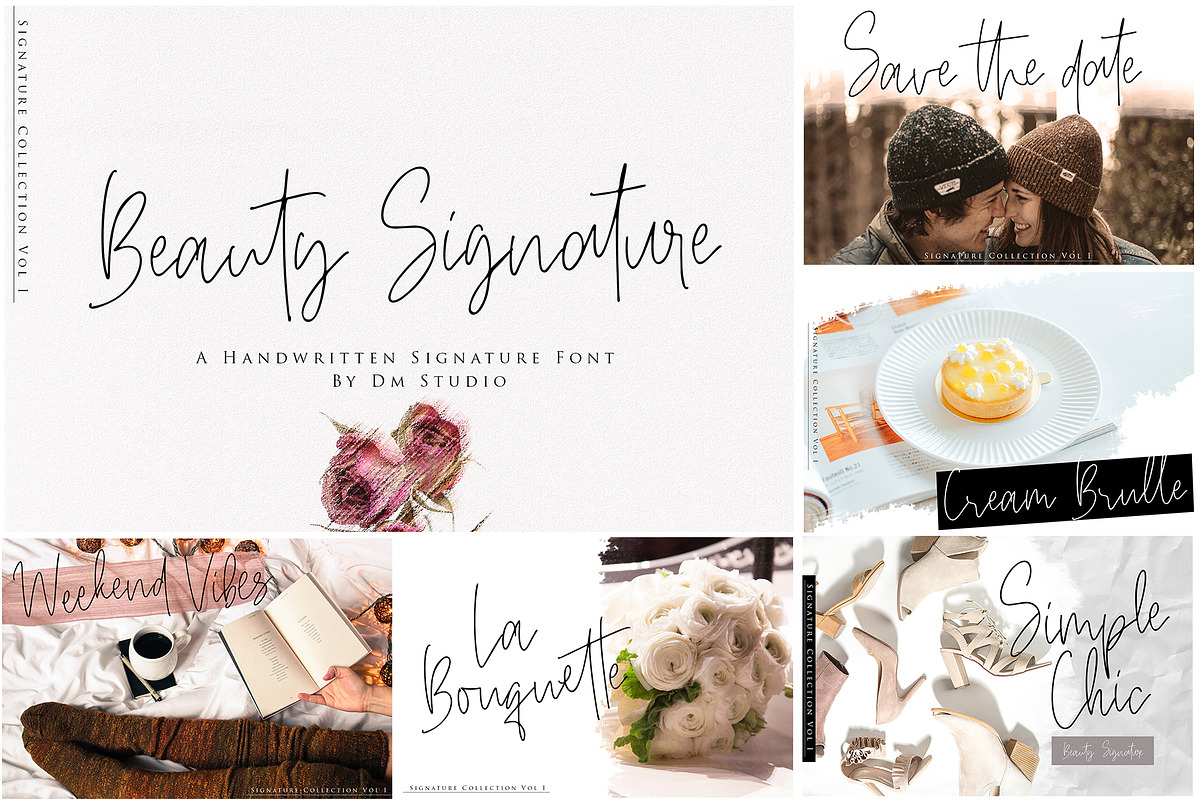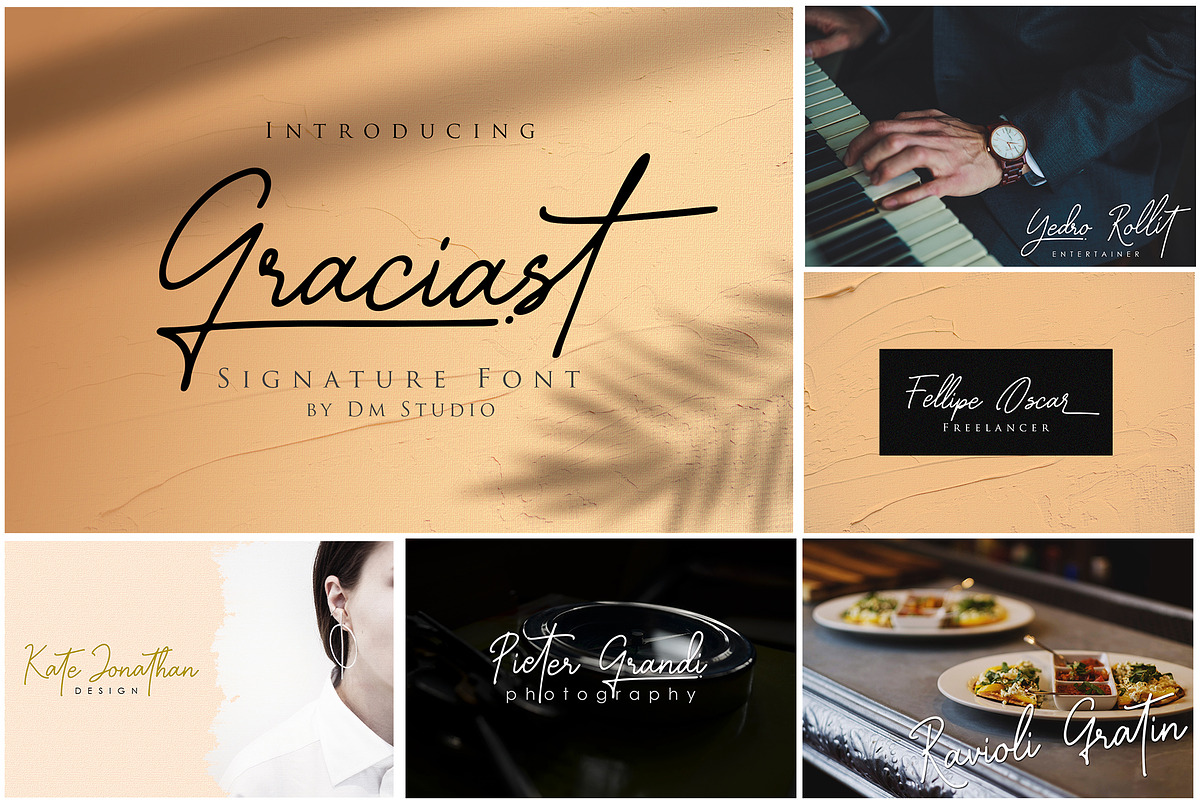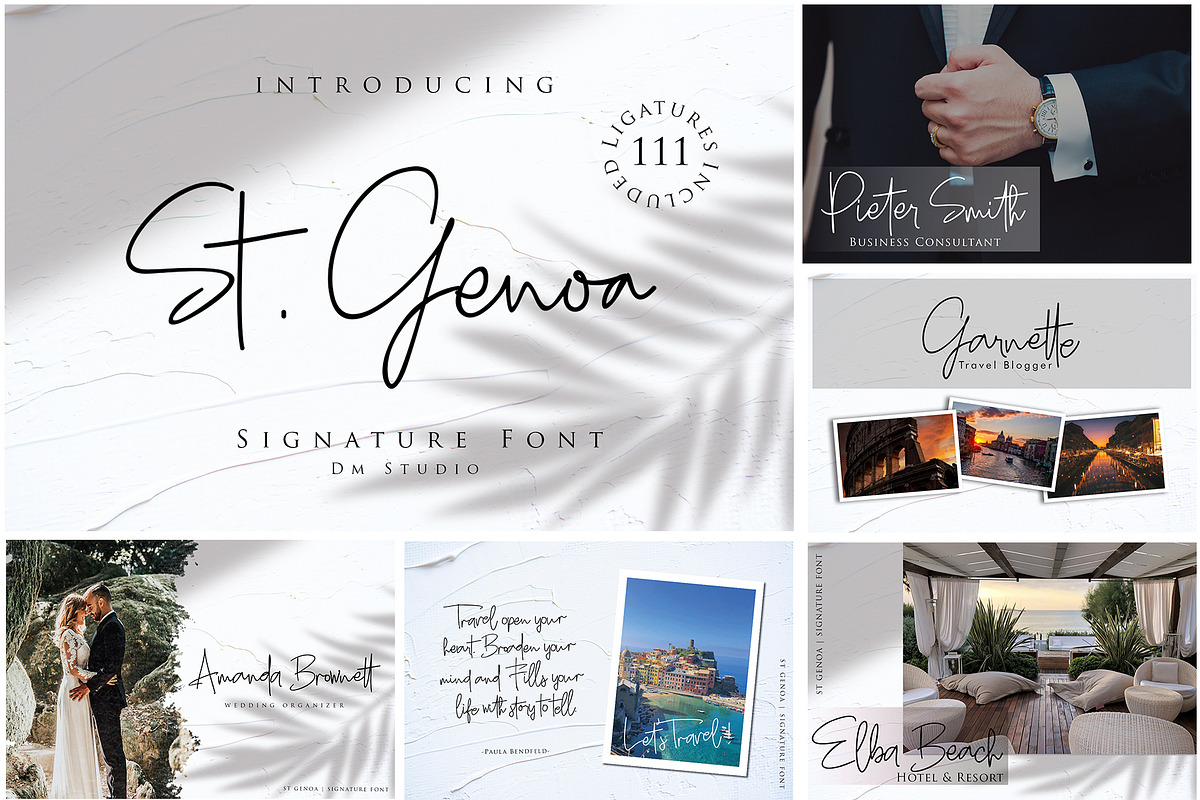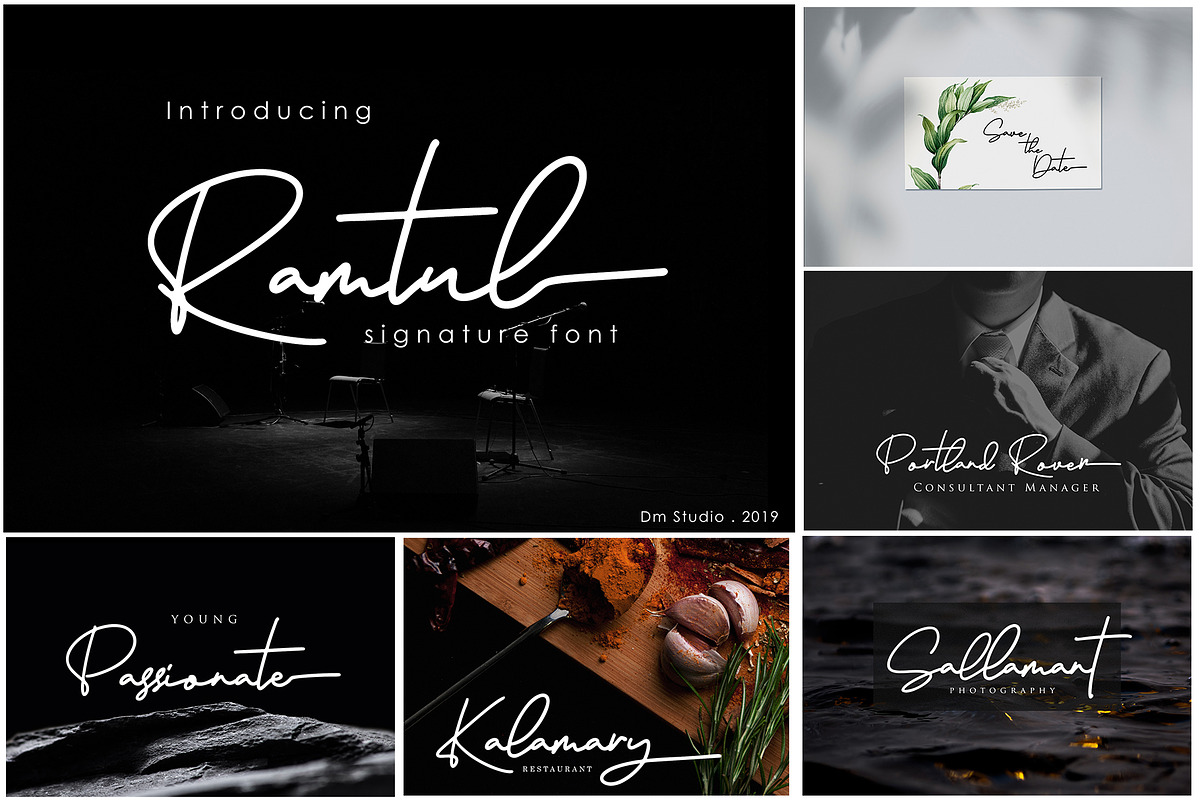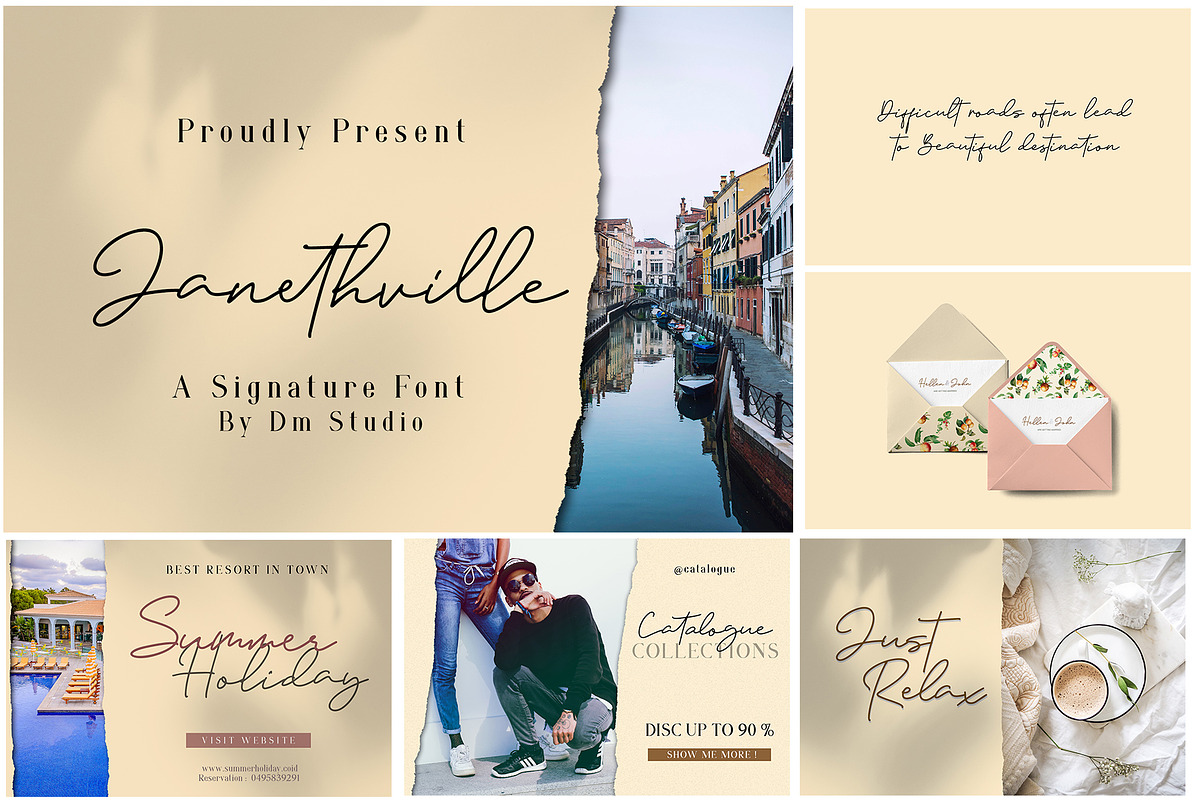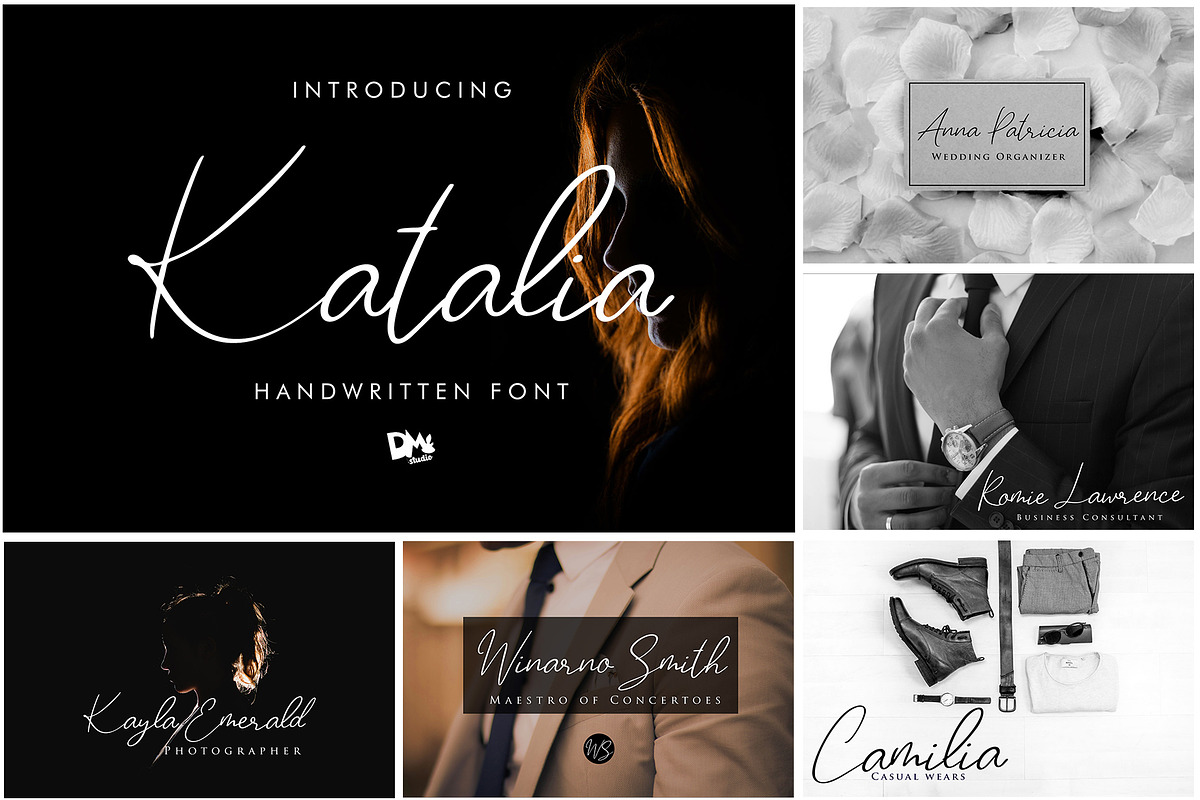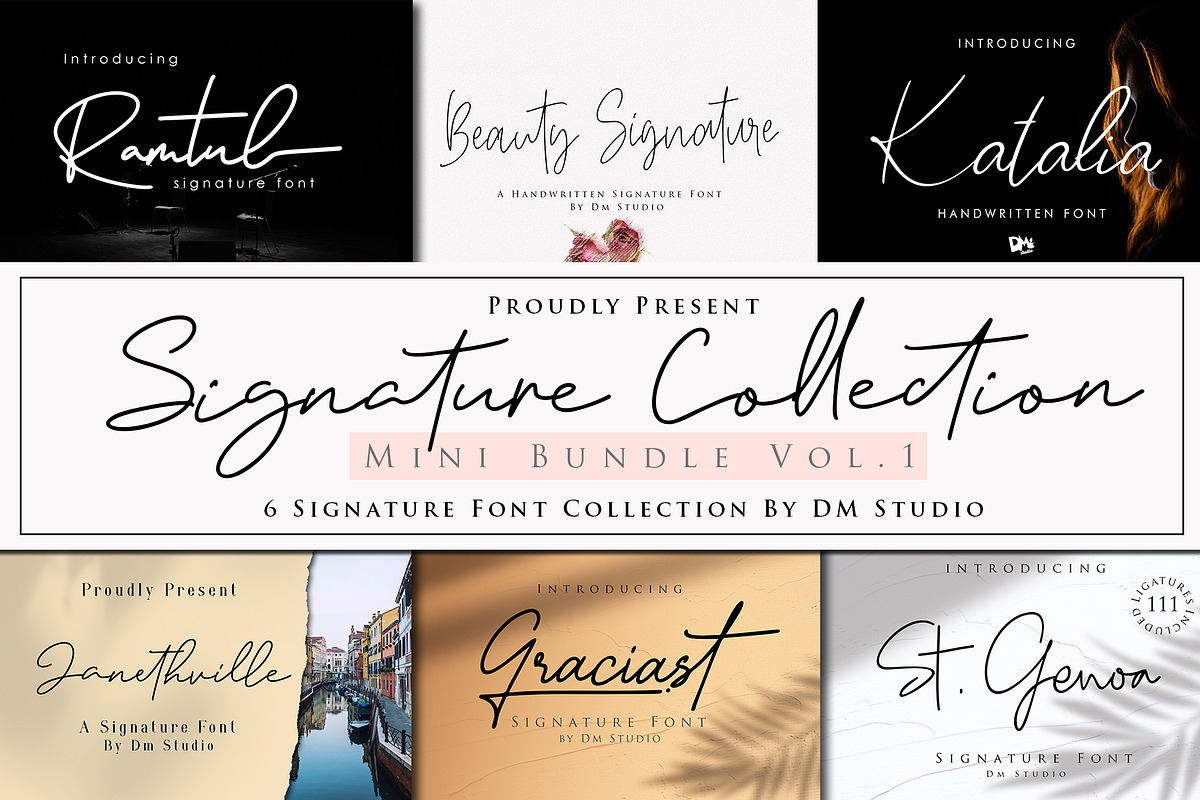
Signature Font - Mini Bundle Vol.1
Just released! The Mini Bundle of our Signature Font Collection Vol I !! It's a collecton of our latest 6 signature font series, great for your elegant projects, digital signature, book cover, promotion stuffs, wedding invitation and much more!
Signature Font - Mini Bundle Vol.1 by Dm Studio fits naturally into Branding, posters, packaging, typography.